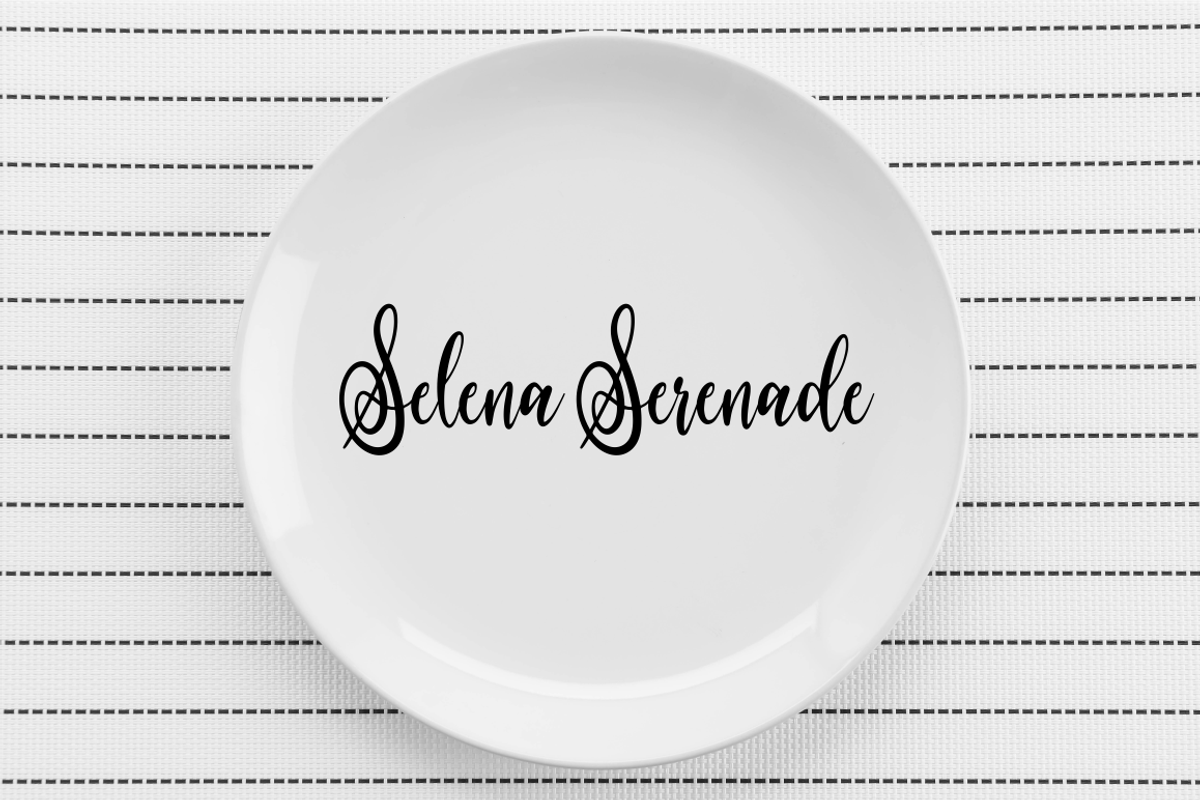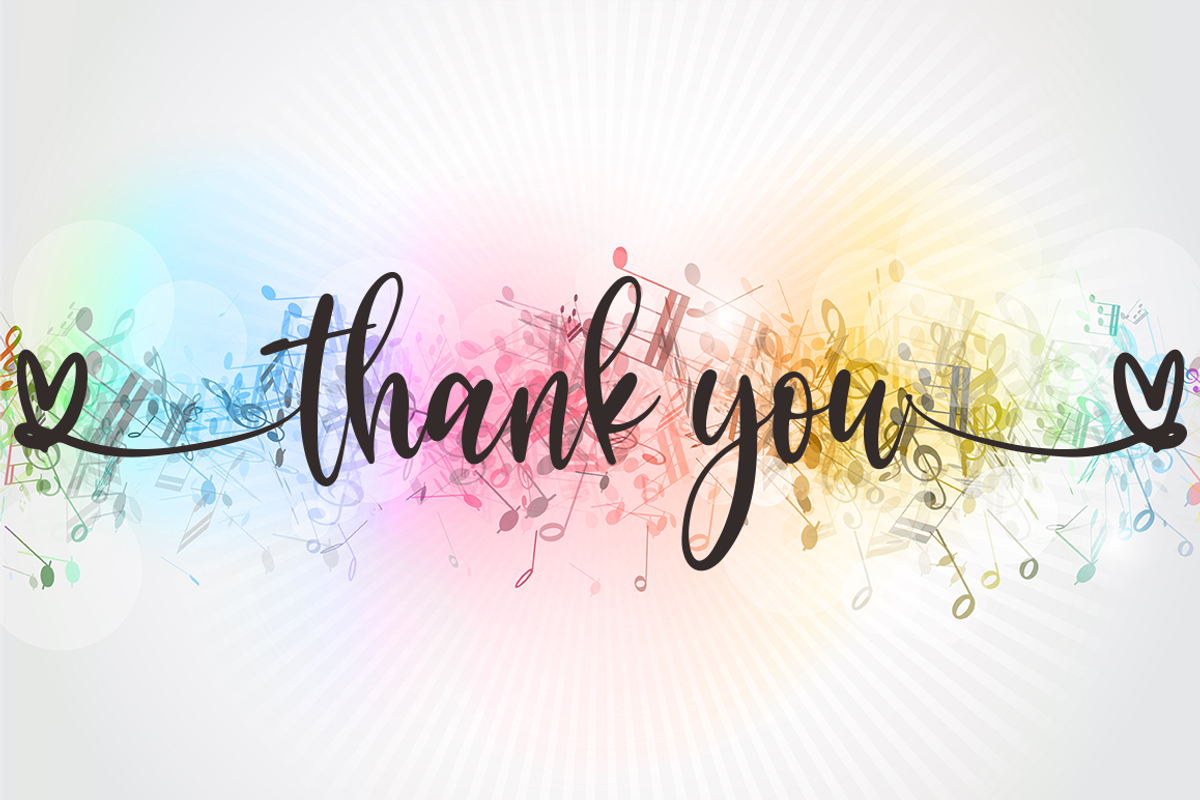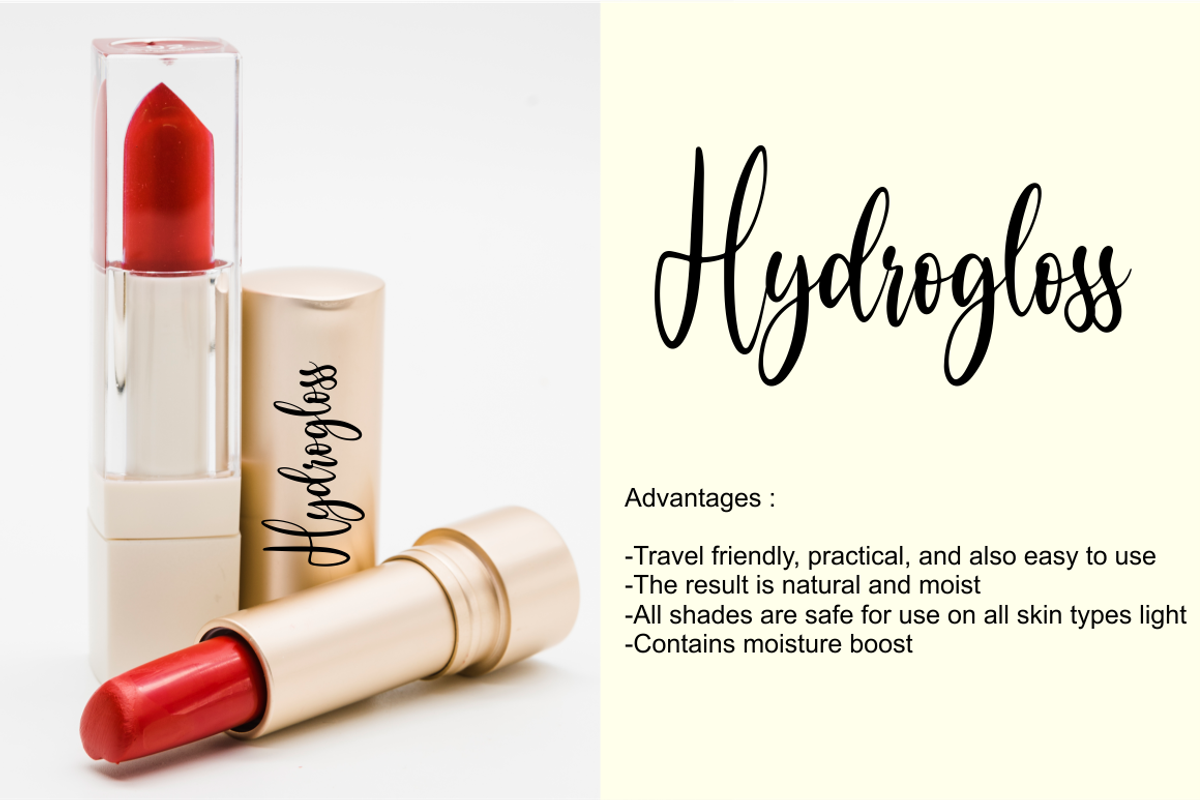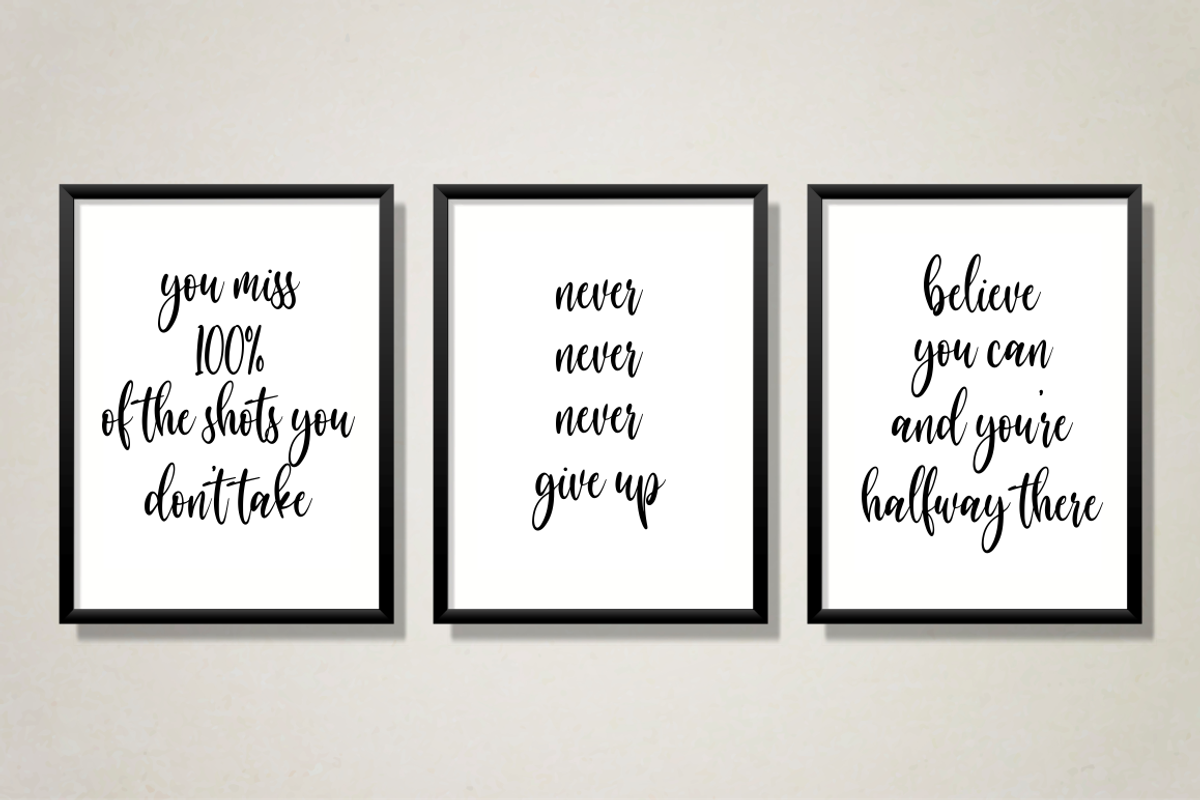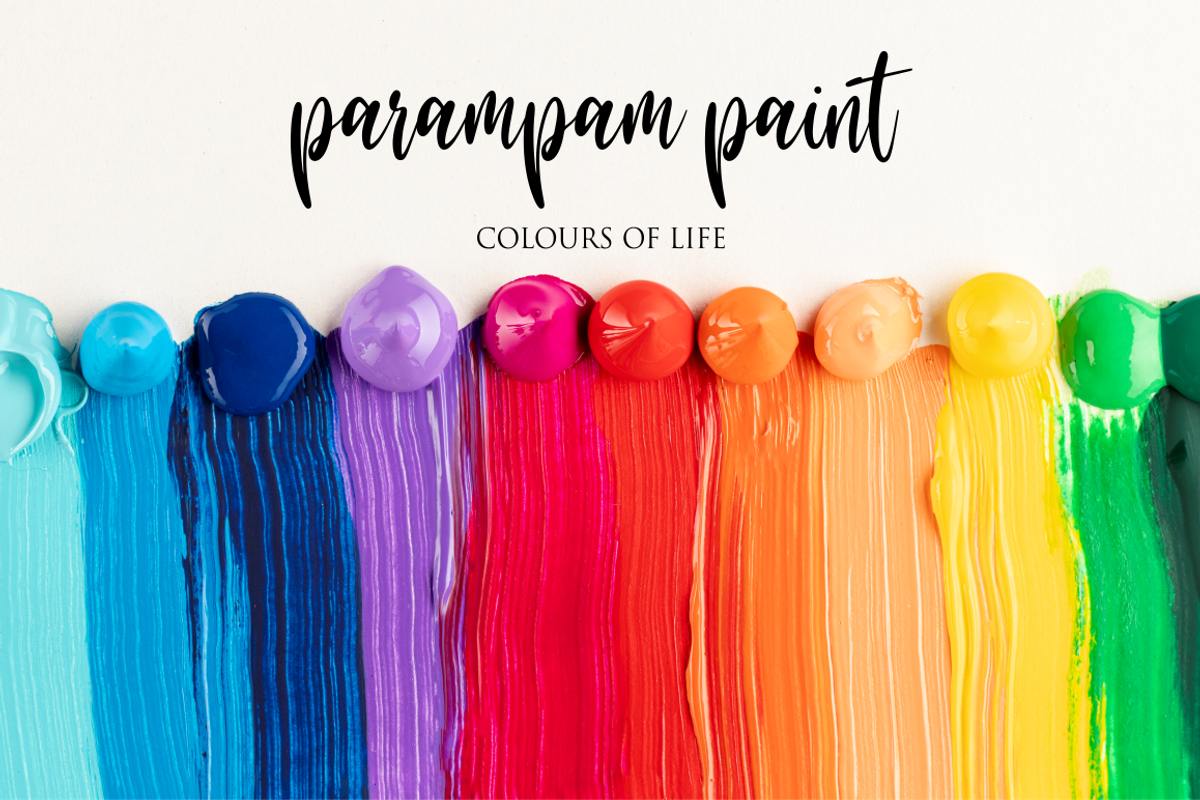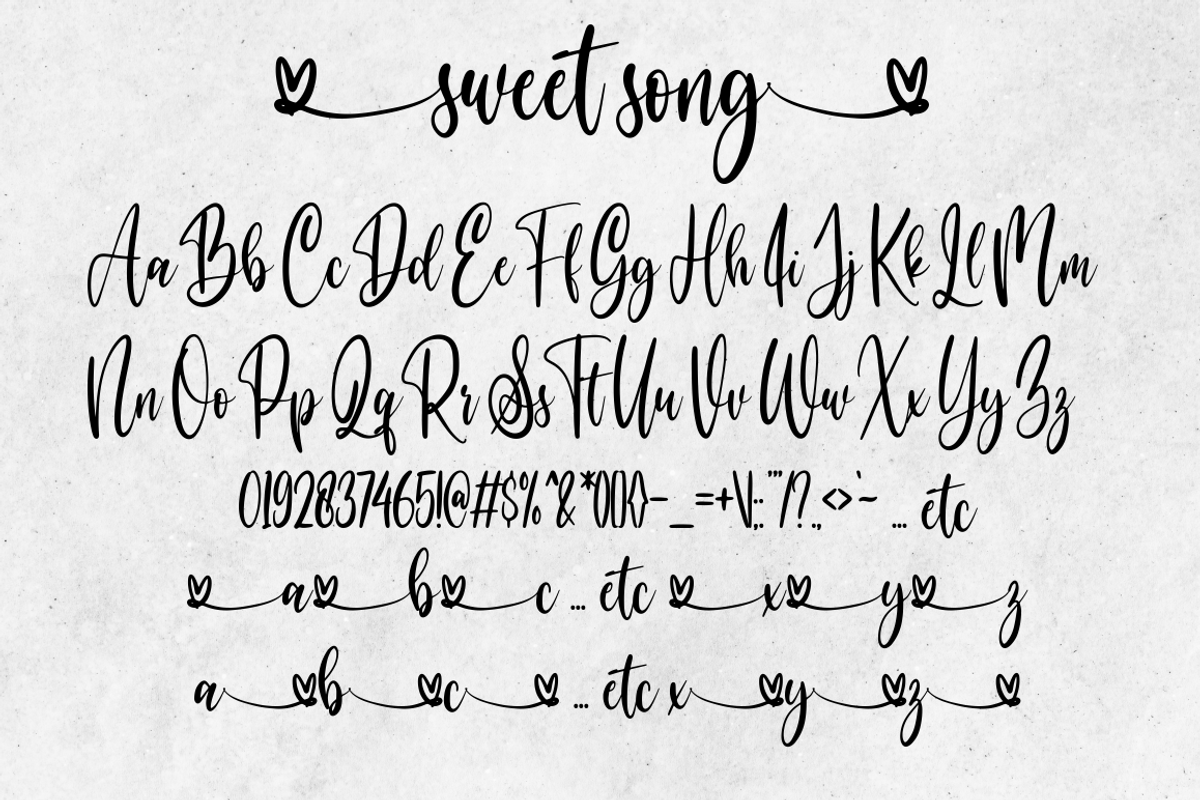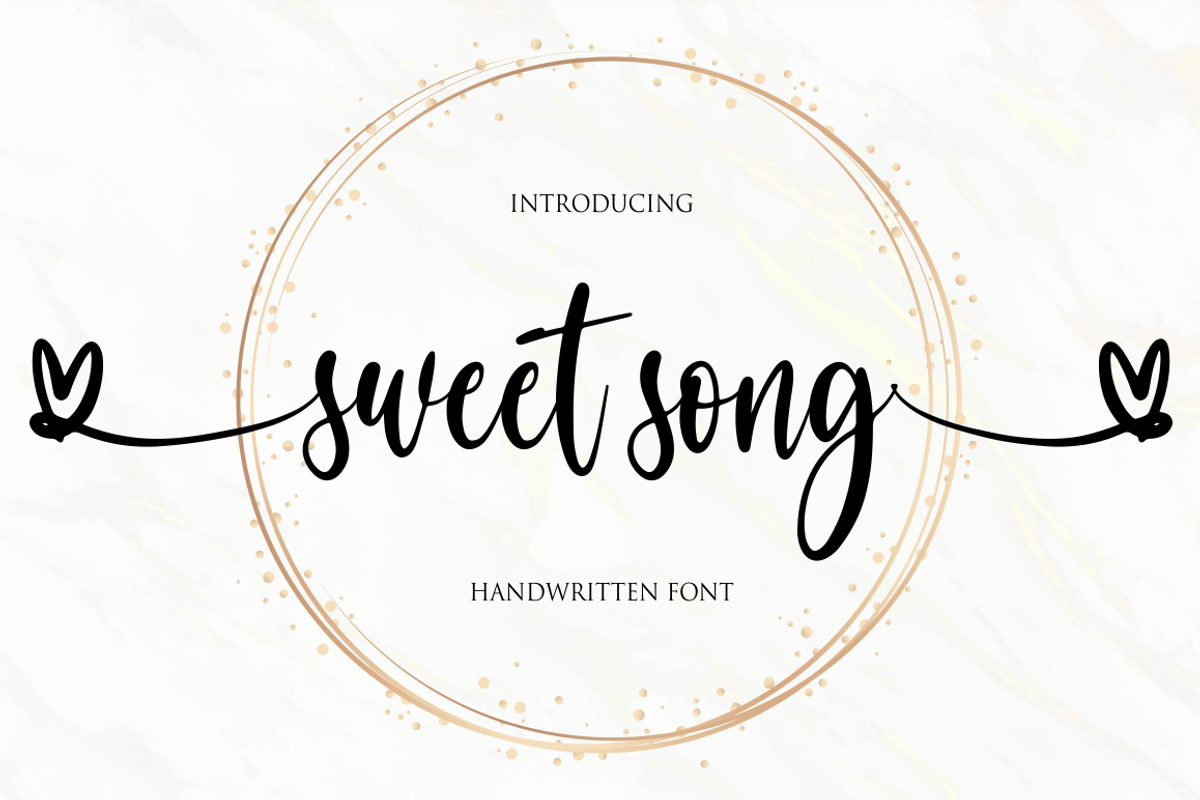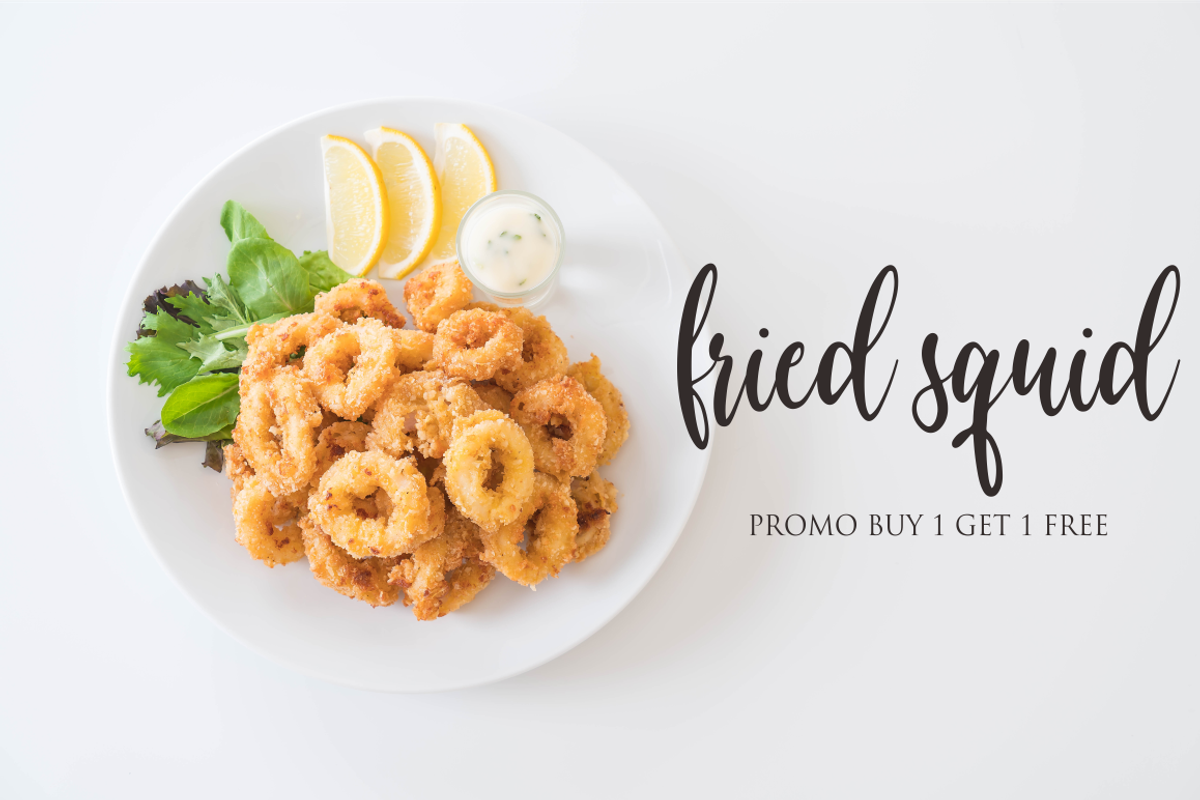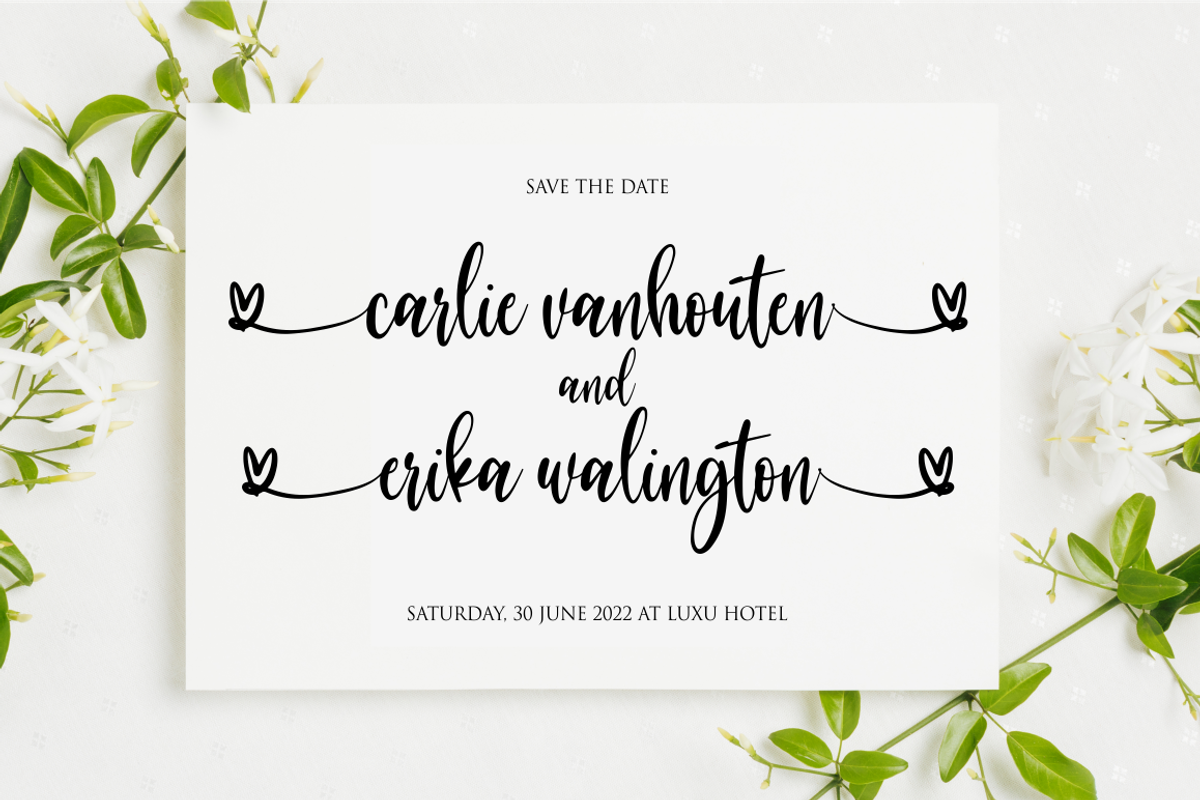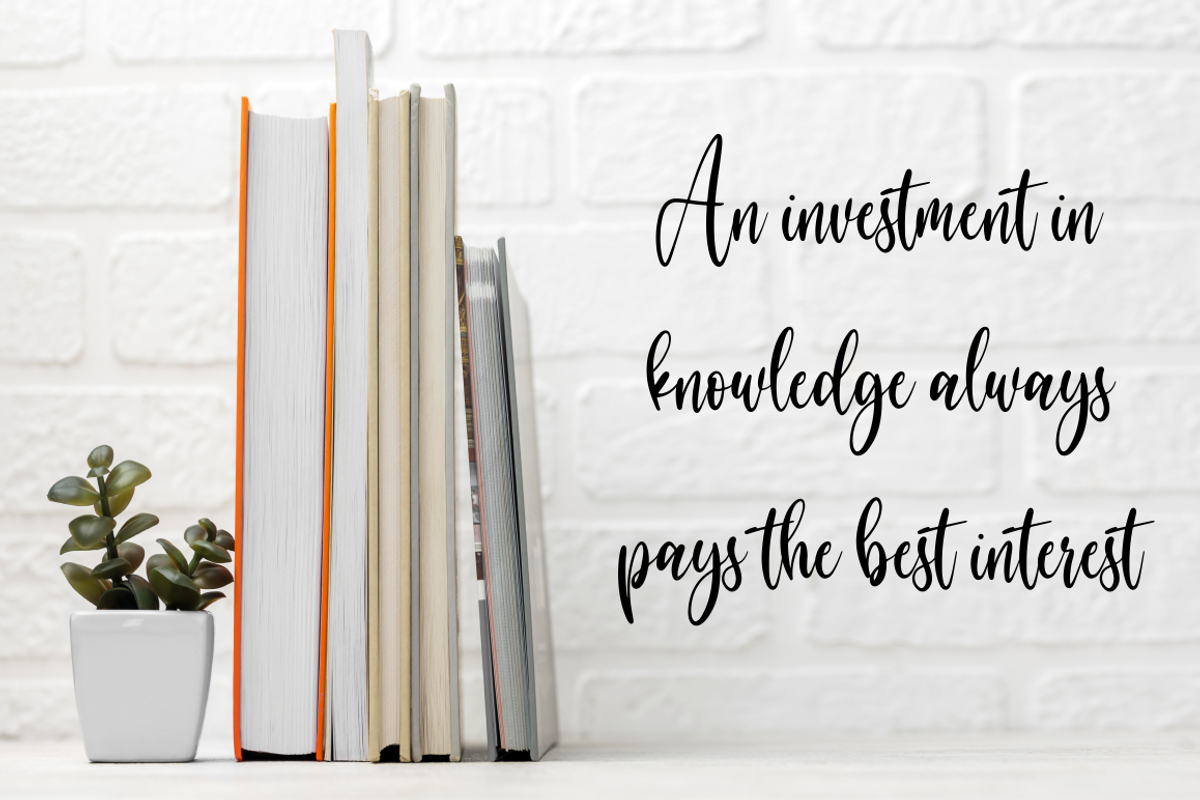
sweet song
sweet song a handwritten script font. It features beginning swash and ending swash characters that will take your projects to the next level!
This font is PUA code which means you can easily access all the glyphs and swashes that are full of swash! It also features many special features including glyphs. font designs that are made for various vector designs, printing such as digital wedding blogs, online shops, social media, while printing can be used in the field of product clothing, accessories, bags, pins, logos, business cards, watermarks and many others ...
so it can make your product look cute and attractive, and also Multilingual support!!!